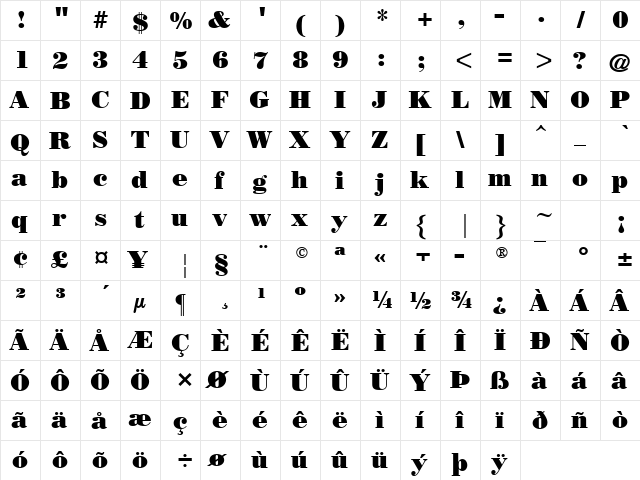
Poster Bodoni ATT Bold
Design Context for Poster Bodoni ATT Typeface
Poster Bodoni ATT is a composed and adaptable typeface that performs quietly and consistently across a wide range of design contexts. Its bold stroke weight gives it real presence on the page.